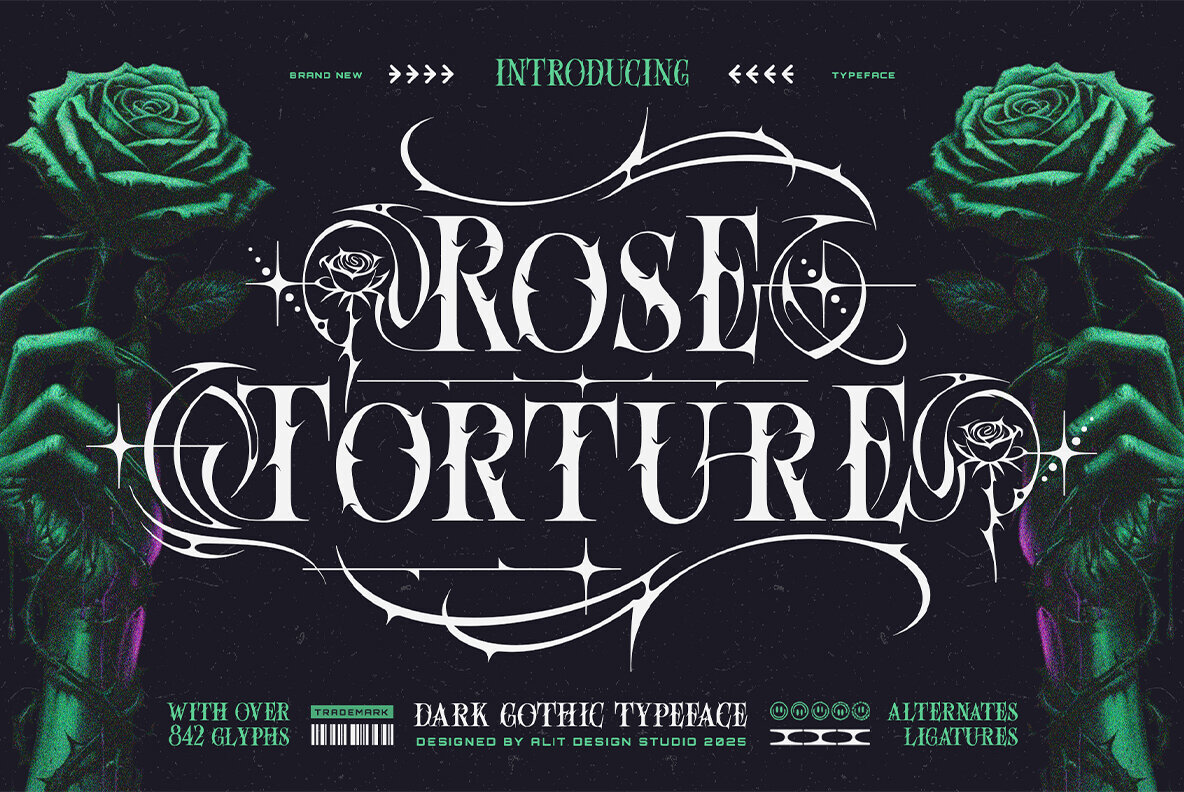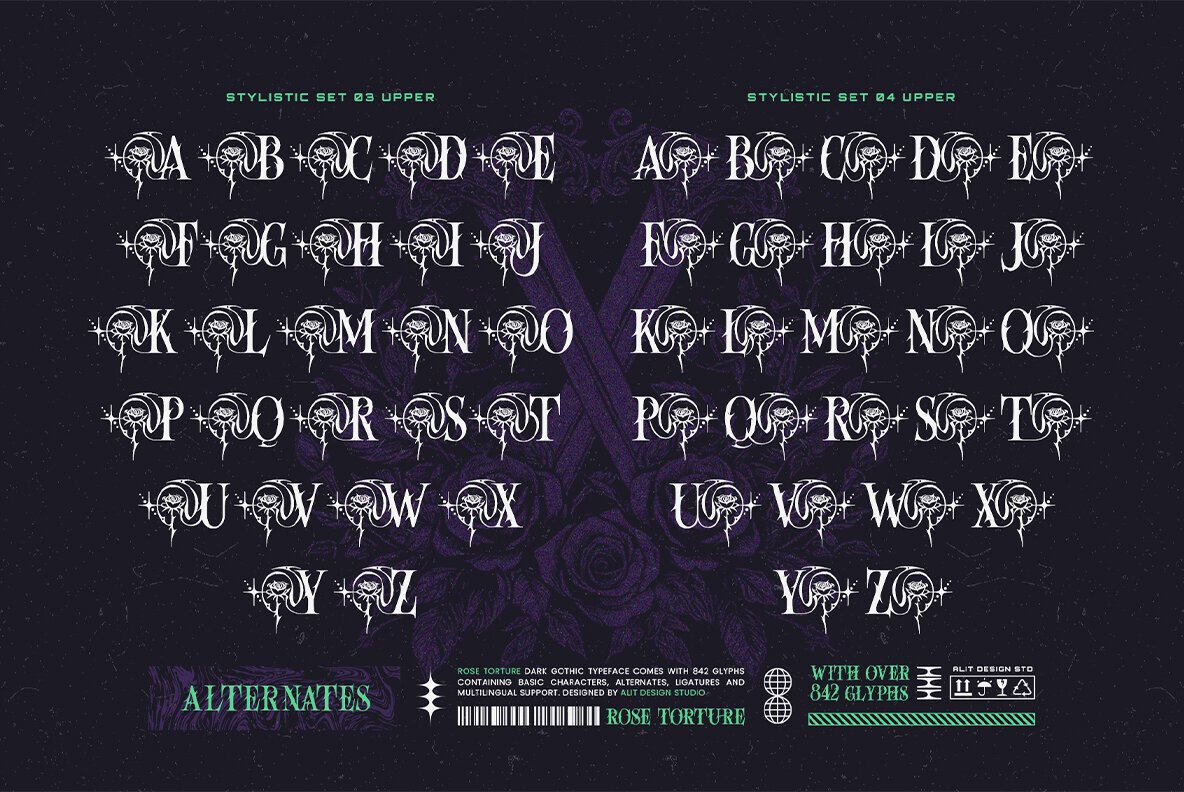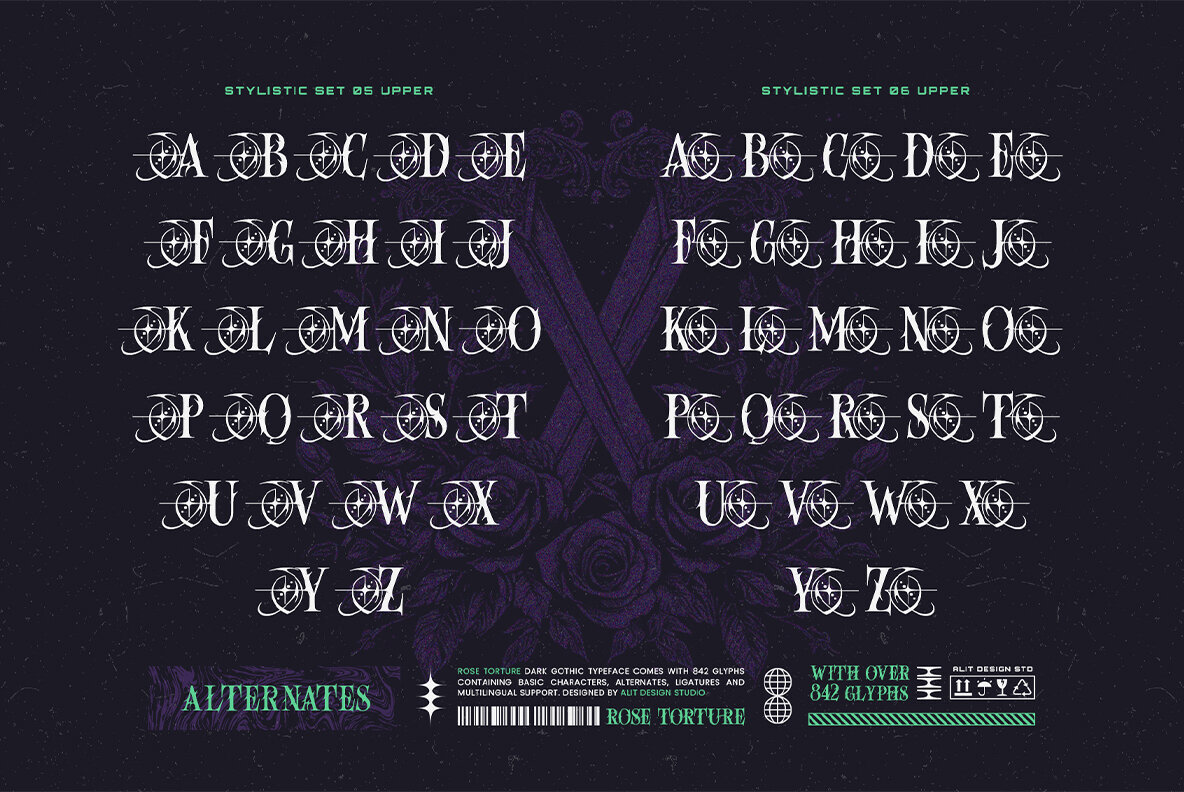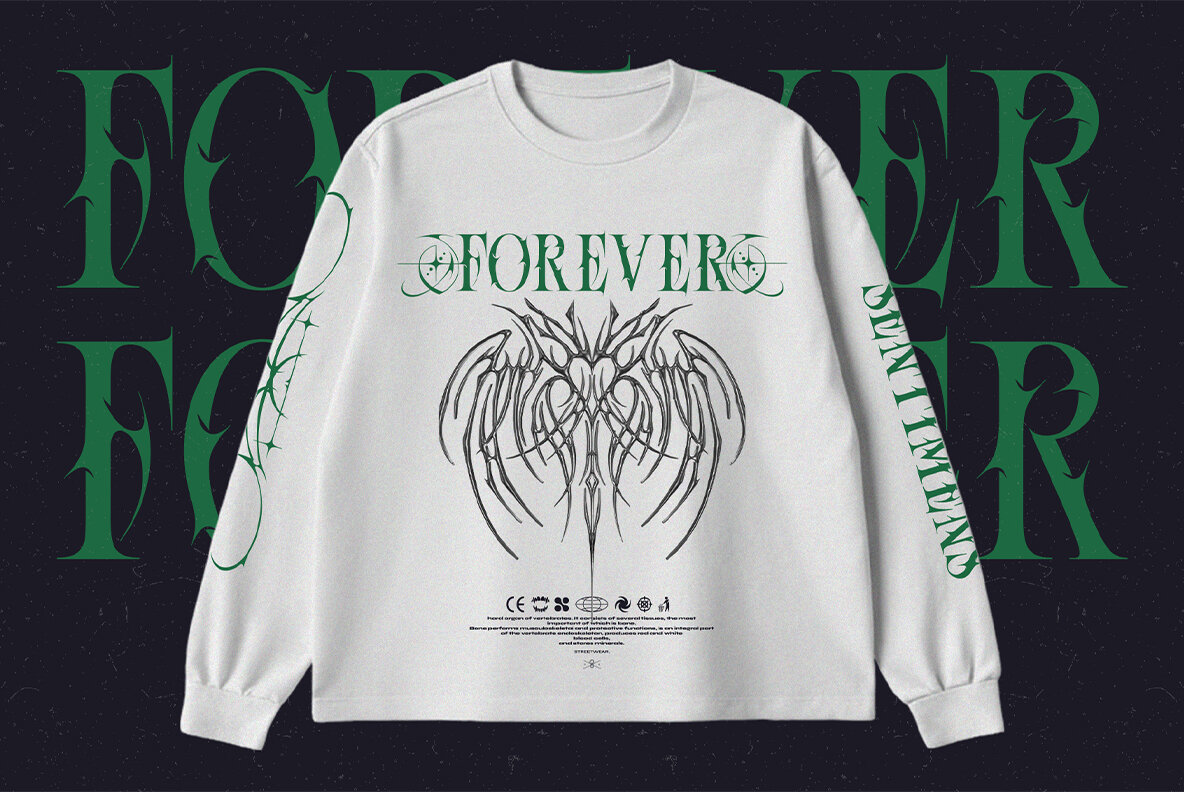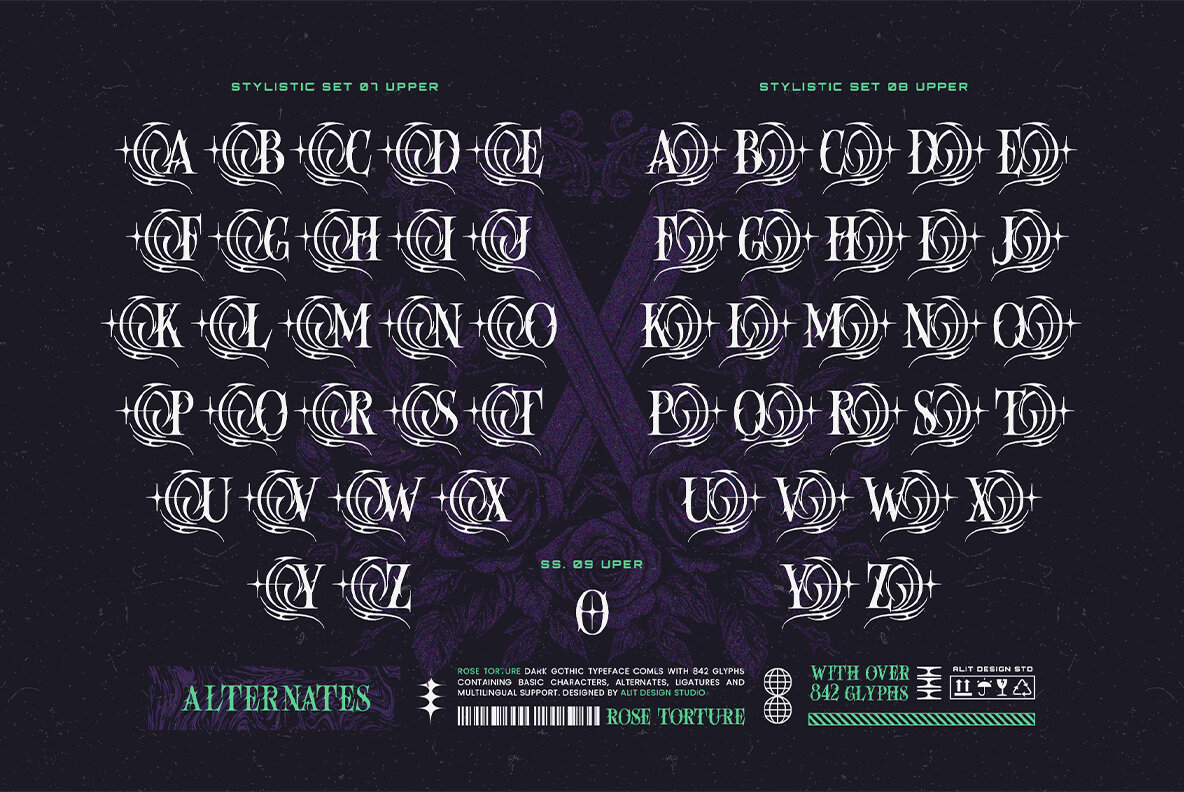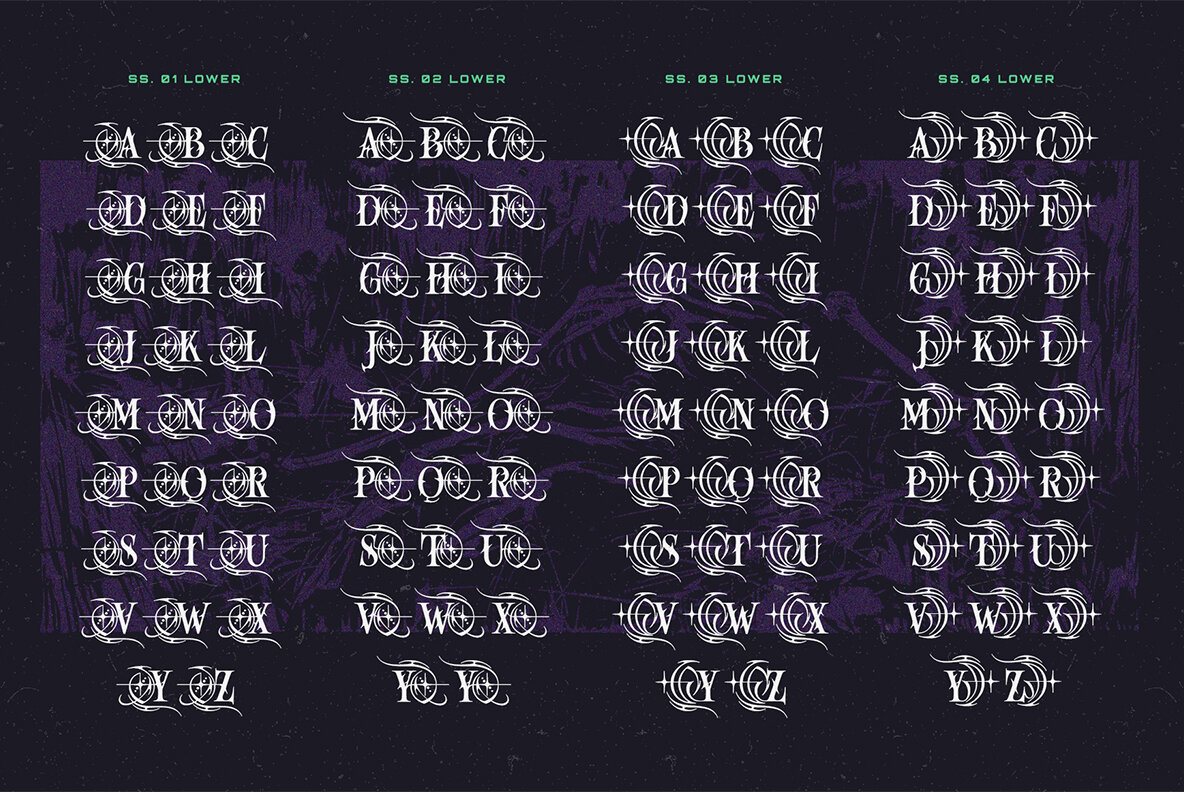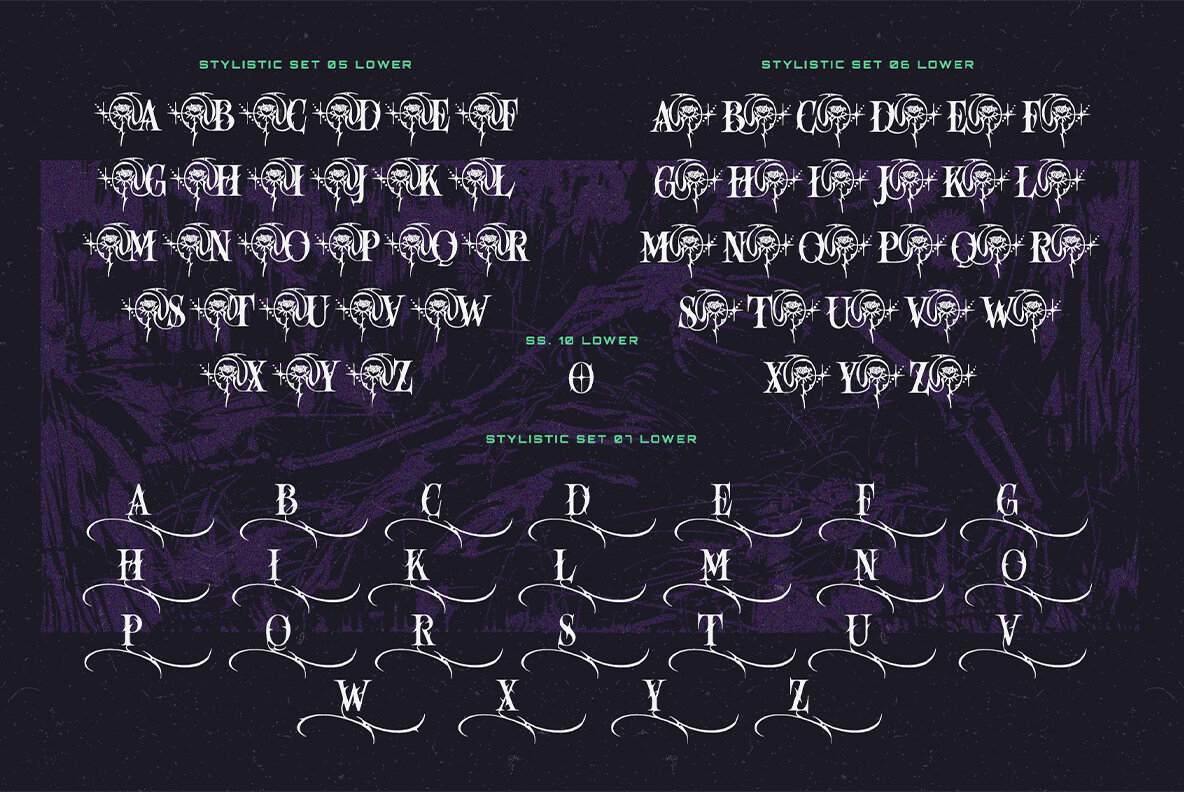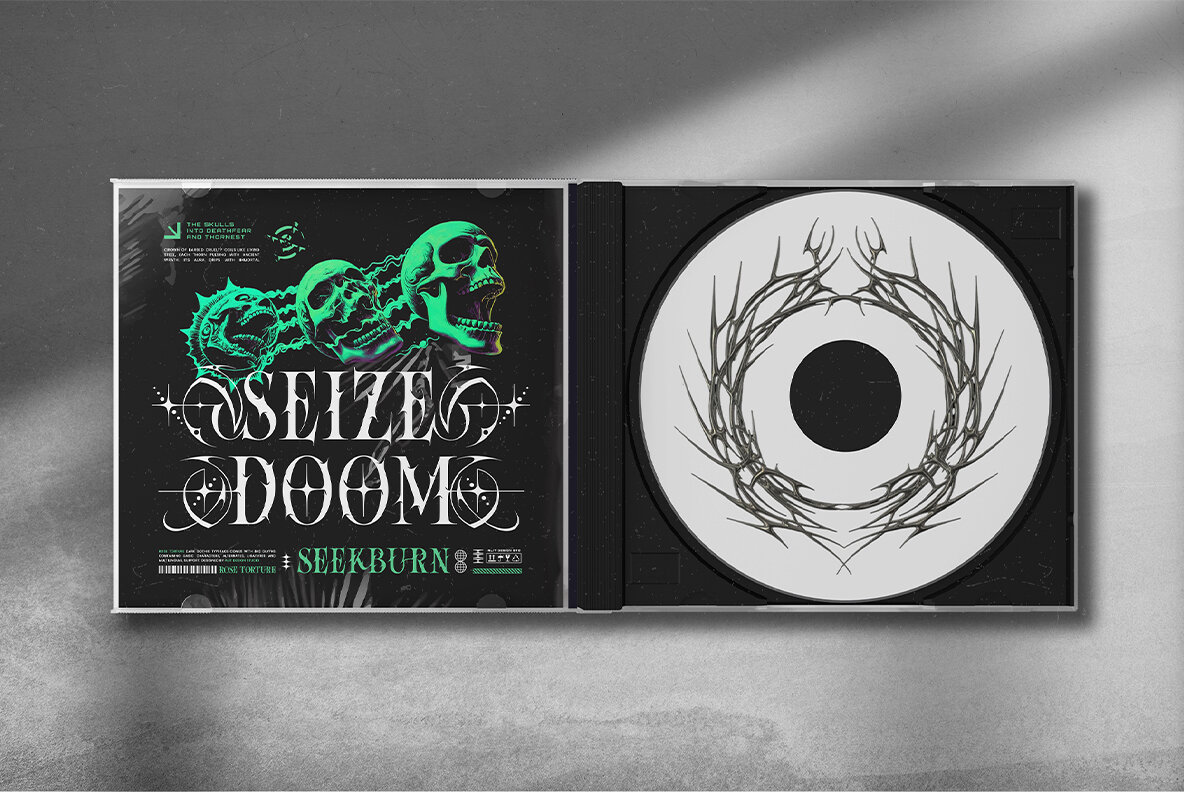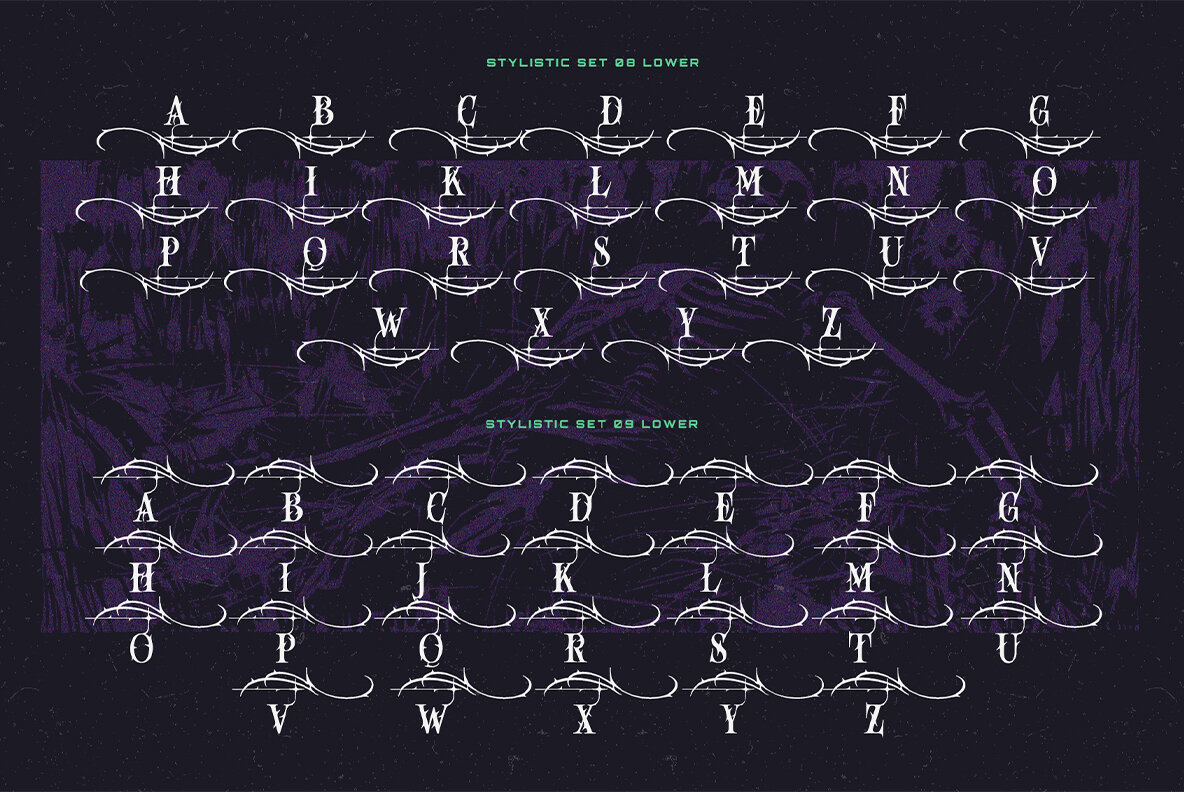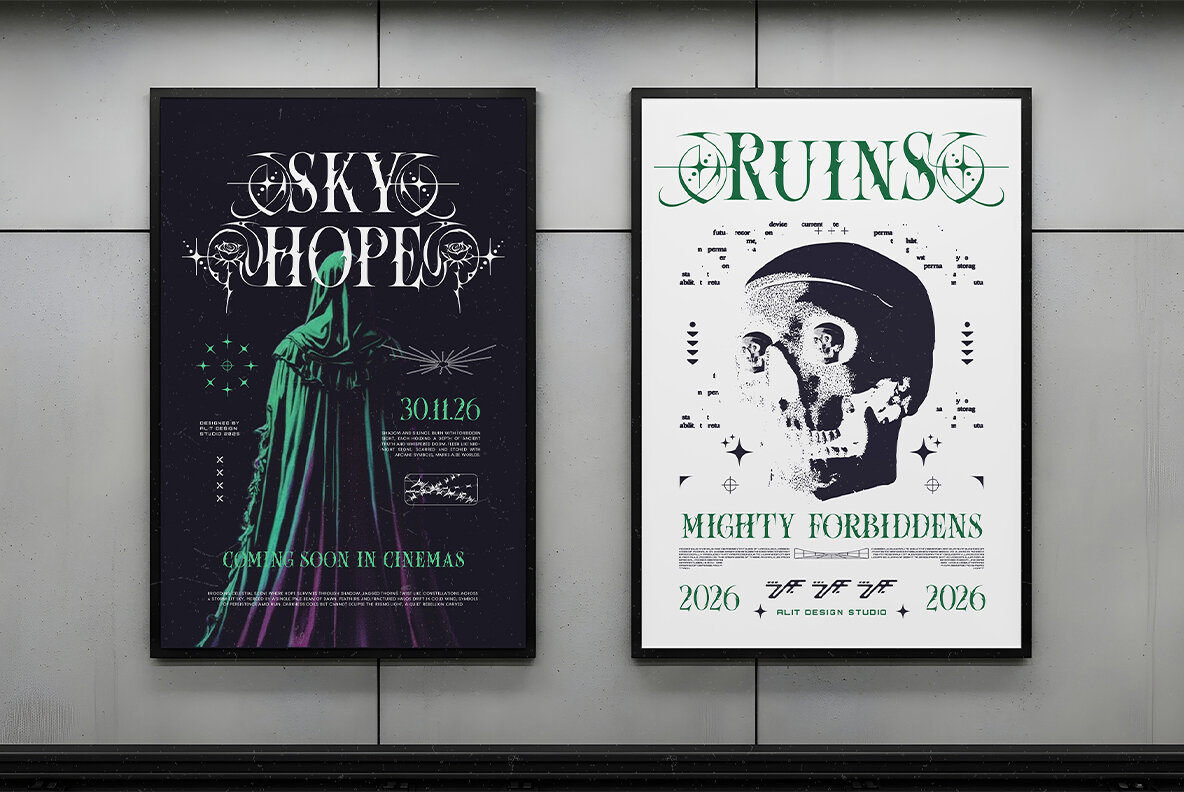
Rose Torture Font
Rose torture Regular
Rose Torture is a striking dark gothic typeface that merges the sharp discipline of classic gothic lettering with the untamed beauty of barbs and thorns. Its bold, all-caps unicase structure makes it instantly recognizable, offering strong legibility while projecting an aura of mysterious elegance. The extensive library of over 842 glyphs—including multiple stylistic sets and uniquely drawn alternates—invites nuanced customization, allowing designers to create lettering that is both intricate and unforgettable. Ideal for high-impact design, Rose Torture brings depth and detail to metal band logos, brutalist posters, and haunting book covers. The included stylistic sets (SS01 through SS04) wrap your text in ornate, thorned frames and flourished swashes, while the ligature selection adds cohesiveness and artistry. Clear and powerful, this font is crafted for designers who demand both expressiveness and technical rigor in their typography.Rose Torture Dark Gothic Typeface